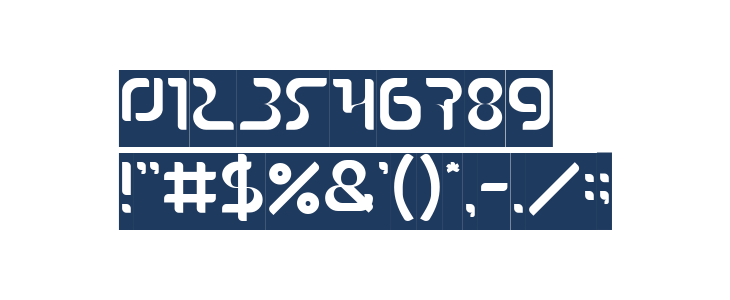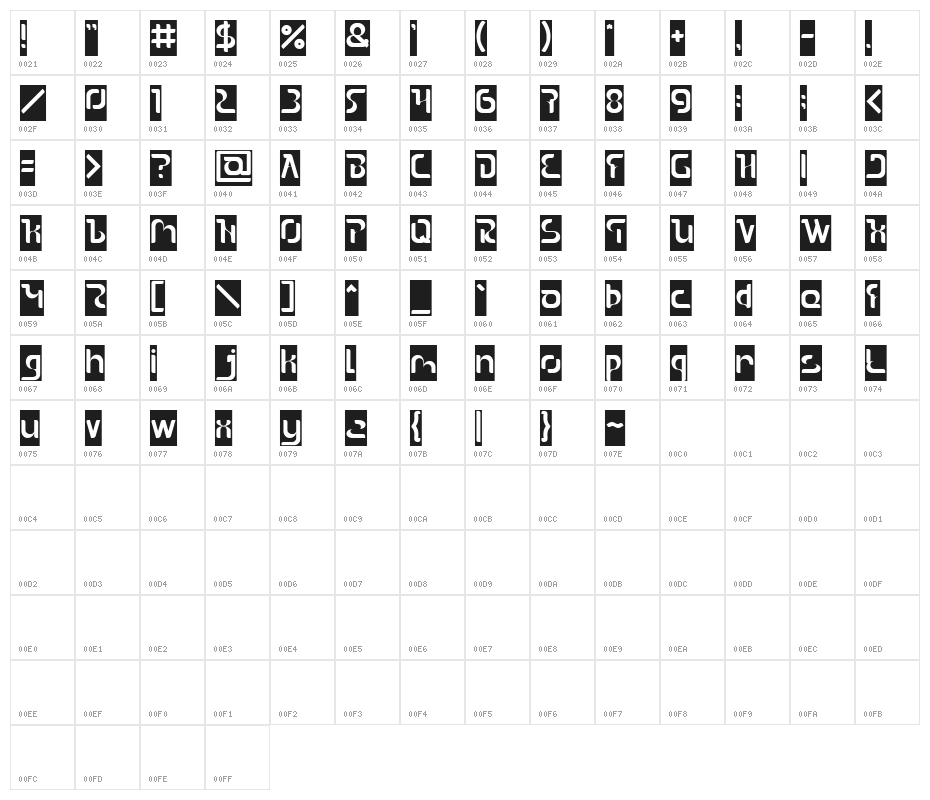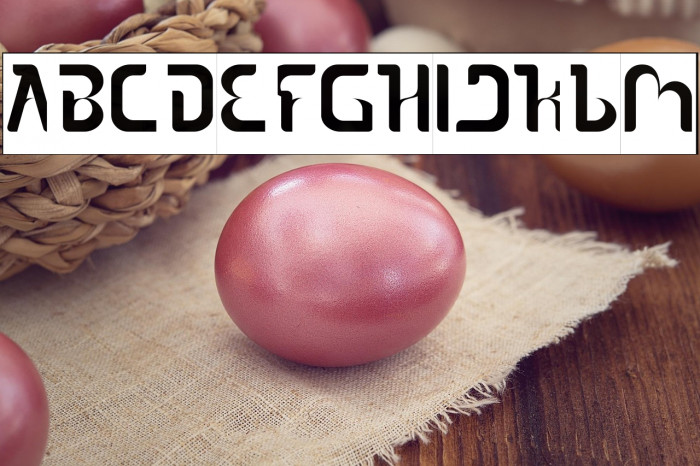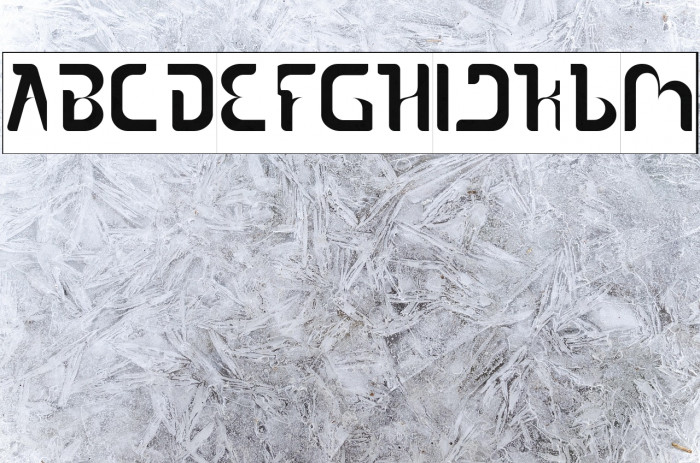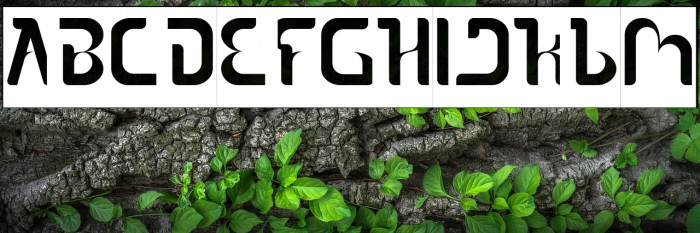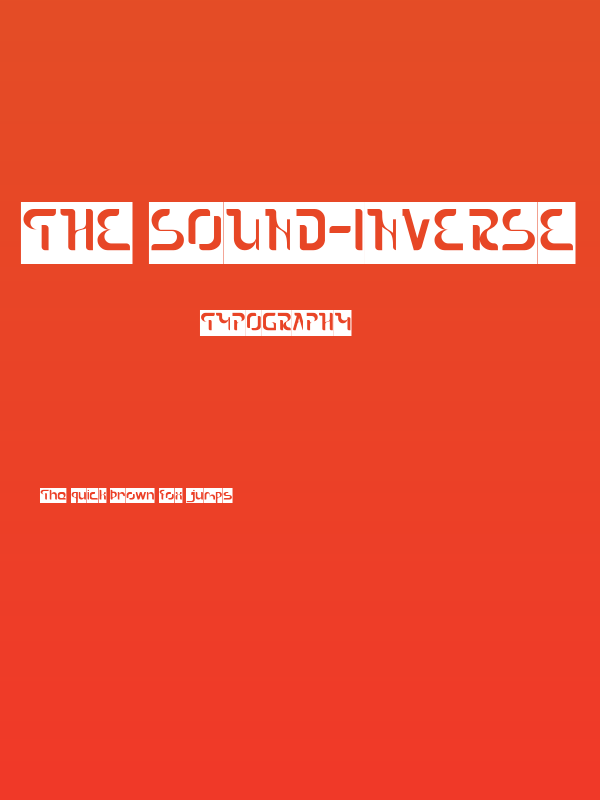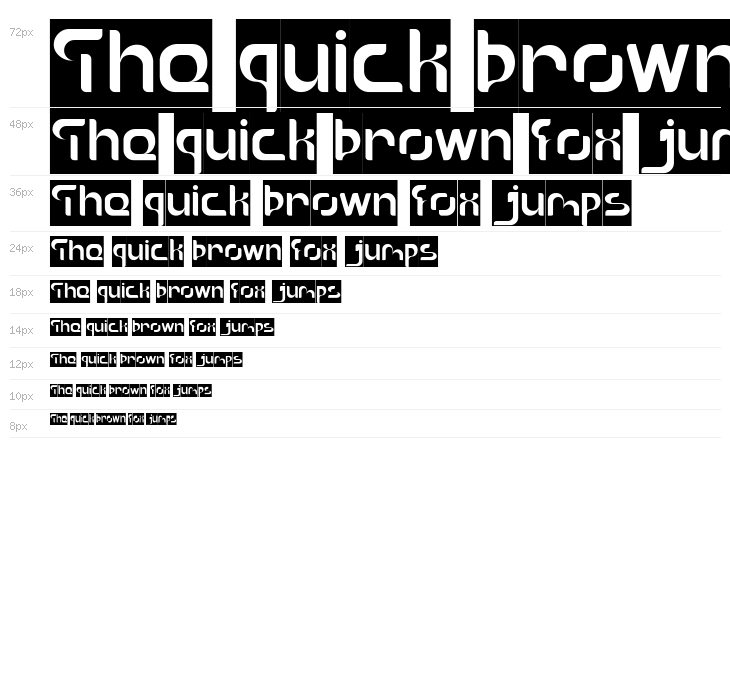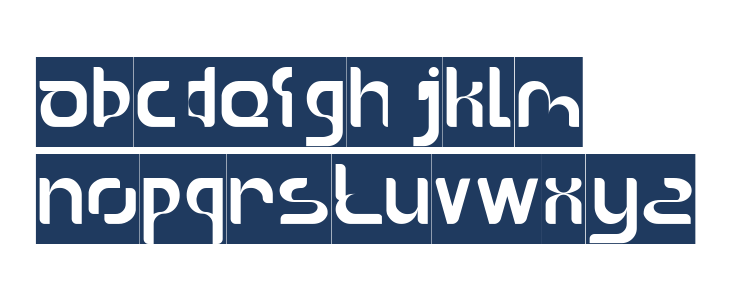
The Sound-Inverse Font
The Sound-Inverse Description
This font features a unique and modern design with a futuristic flair. The characters are bold and geometric, with a distinct use of negative space that creates an intriguing visual effect. The uppercase and lowercase letters maintain a consistent style, characterized by rounded edges and a uniform thickness. Numbers and special characters follow the same design principles, ensuring a cohesive look across all elements. The font's style is both eye-catching and versatile, making it suitable for a variety of creative projects.
| Proposed Projects | Ideal for branding, logos, posters, and digital media that require a modern and distinctive look. |